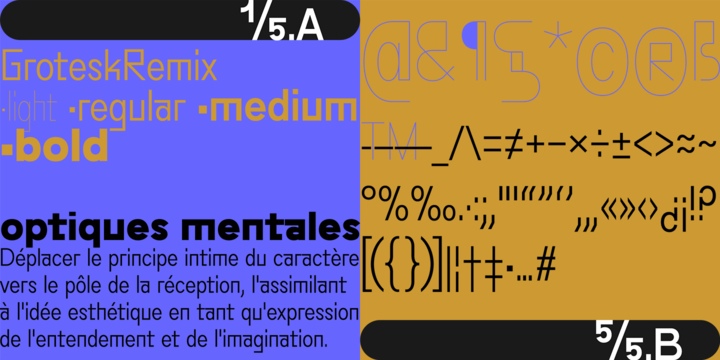
Grotesk Remix Font
Grotesk Remix Font is perfect for modern corporate branding, contemporary web design, urban signage systems, tech startup communications, experimental graphic design, progressive marketing campaigns, architectural presentations, and cutting-edge editorial layouts.
Grotesk Remix Font is exciting because it reinvents classic grotesque typography with innovative character details and contemporary refinements that create striking visual impact while maintaining exceptional functionality. Its modern interpretation bridges historical typography tradition with forward-thinking design sensibility that resonates with progressive audiences.
Grotesk Remix Font family includes regular weight with stylistic alternates and contemporary variations, providing designers with comprehensive options for creating innovative typography solutions that project modernity and experimental sophistication.
Design professionals consistently choose Grotesk Remix Font for projects requiring experimental flair and contemporary authenticity. Its innovative character works magnificently in tech environments, modern galleries, progressive publications, and experimental design studios where cutting-edge aesthetics and contemporary personality drive audience engagement. The font's reimagined nature creates memorable brand experiences that communicate innovation and design leadership.
The Grotesk Remix Font download package includes stylistic alternates, contemporary variations, and experimental elements that enhance its modern appeal and design flexibility. This comprehensive collection ensures professional results in progressive design projects requiring innovative typography character. The font performs exceptionally across both digital and print applications where its contemporary details and experimental proportions create significant visual interest and modern distinction.
Creative teams appreciate Grotesk Remix Font's ability to communicate design innovation and contemporary sophistication in competitive creative markets. Its experimental styling transcends traditional typography approaches while maintaining the functionality required for professional contemporary positioning, making it an essential tool for organizations seeking to establish cutting-edge brand presence through superior modern typography and exceptional progressive communication.